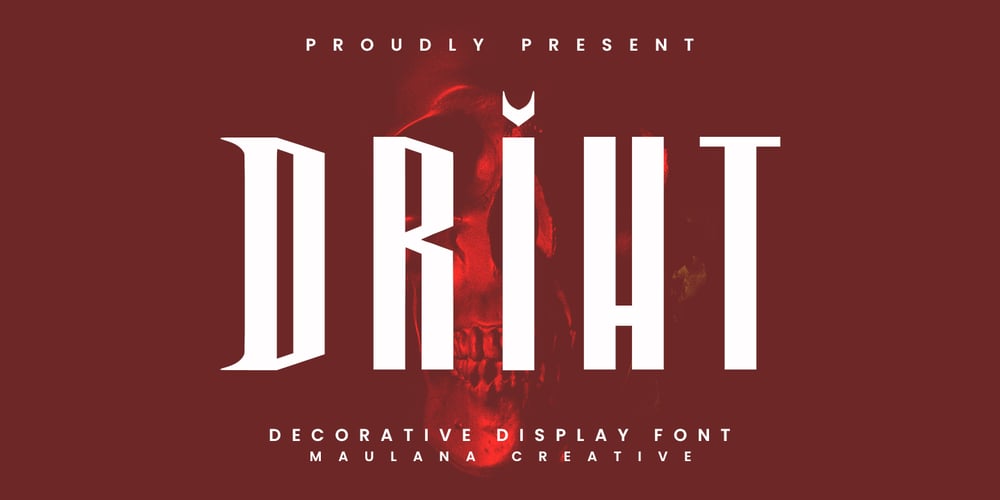
MC Driht
MC Driht font
MC Driht Font Family was designed by Gilang Maulana and published by Maulana Creative. MC Driht contains 1 styles and family package options. Driht decorative display font. Heavy stroke, fun character with a bit of ligatures. To give you an extra creative work. Driht decorative display font support multilingual more than 100+ language. This font is good for logo design, Social media, Movie Titles, Books Titles, a short text even a long text letter and good for your secondary text font with script or serif. Make a stunning work with Driht decorative display font. Cheers, Maulana Creative